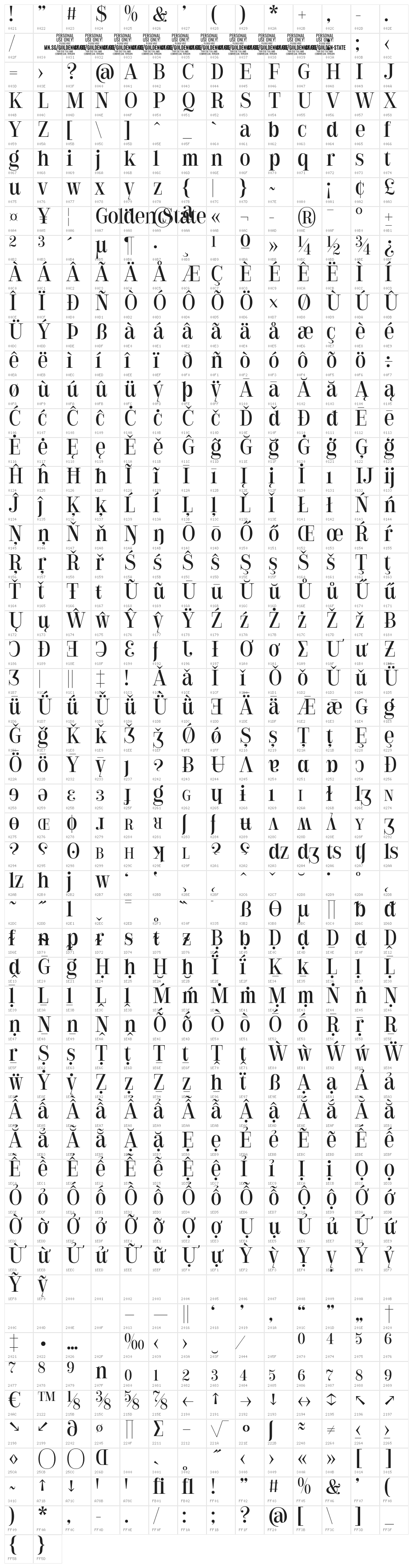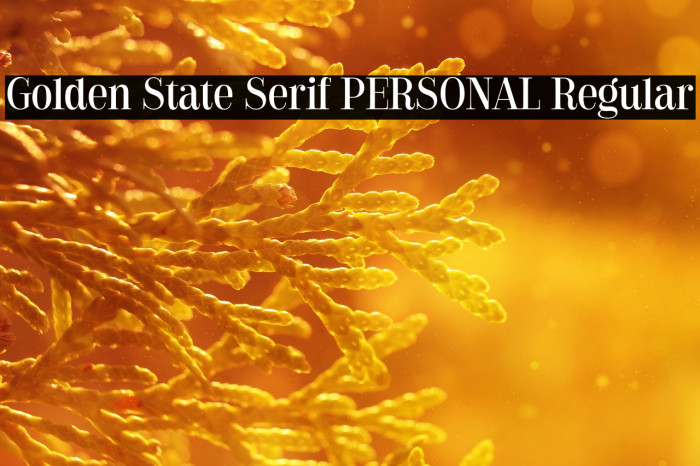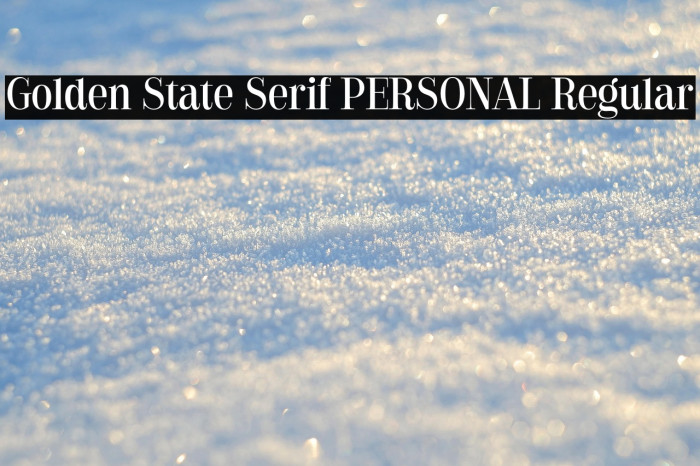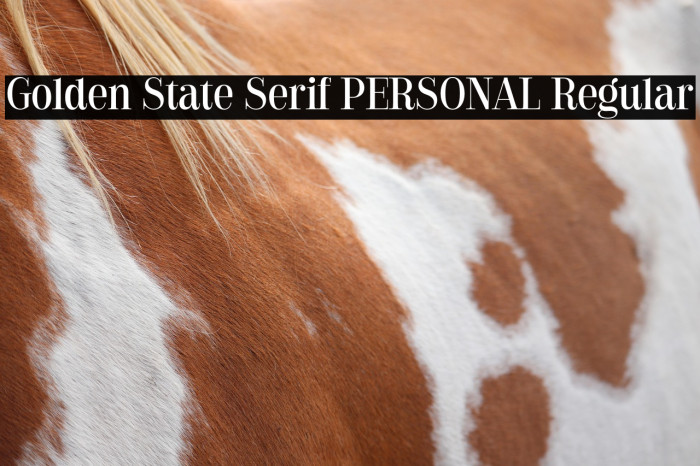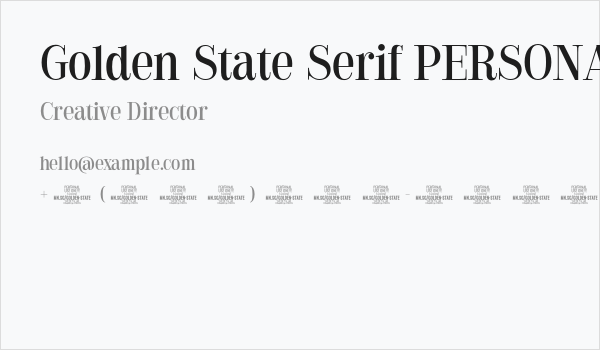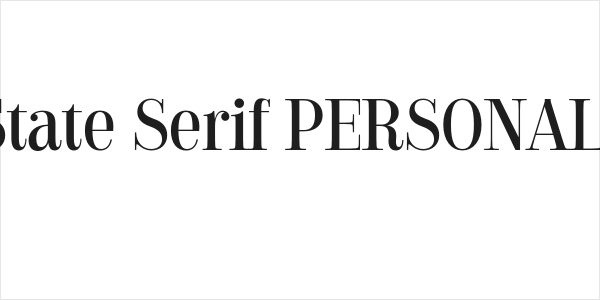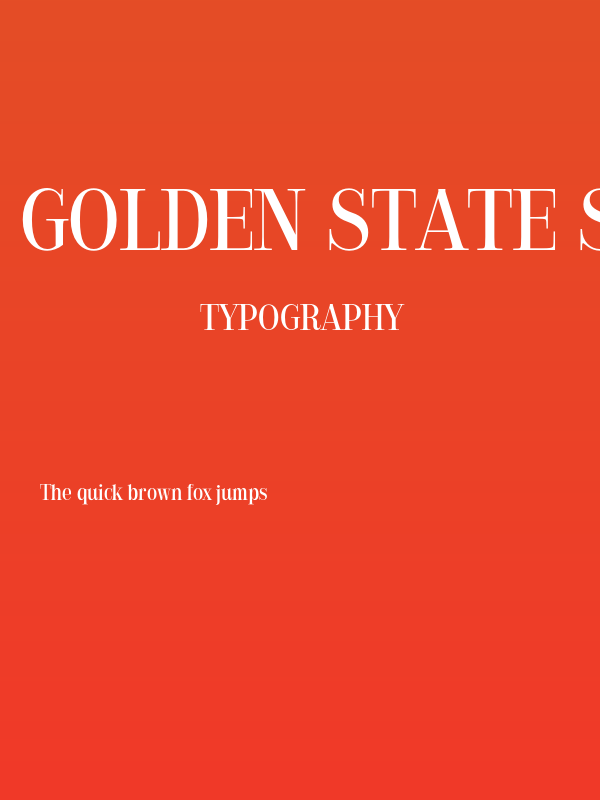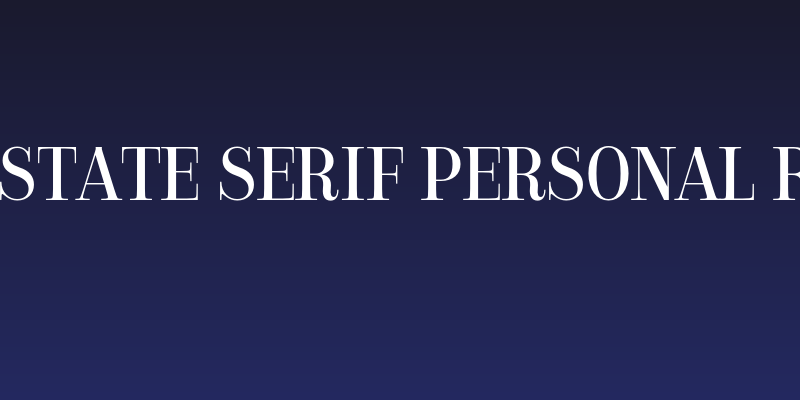
Golden State Serif PERSONAL Regular Font
Golden State Serif PERSONAL Regular Description
This font features a classic serif style with elegant and refined strokes. The uppercase letters are tall and stately, with a slight contrast in stroke thickness that adds sophistication. The lowercase letters maintain a consistent style, with smooth curves and sharp serifs that enhance readability. The numerals are well-proportioned, aligning seamlessly with the overall design. Special characters are distinct and maintain the font's classic aesthetic. This font is versatile, suitable for both formal and creative projects, offering a timeless appeal.
| Proposed Projects | Ideal for book covers, editorial design, branding, and elegant invitations. |